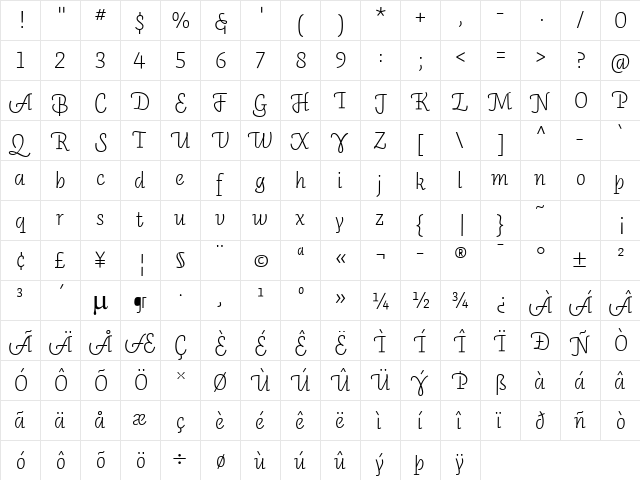
Auto 3 Light Italic LF
Design Context for Auto 3 Typeface
Auto 3 is a composed and adaptable typeface that performs quietly and consistently across a wide range of design contexts. The dynamic lean of this cut emphasises speed and emphasis in any layout. The delicate stroke weight brings airiness and refinement to layouts.
Pro Tip: Use Auto 3 for emphasis, pull quotes, and subheadings where its slanted energy can add rhythm to the layout.